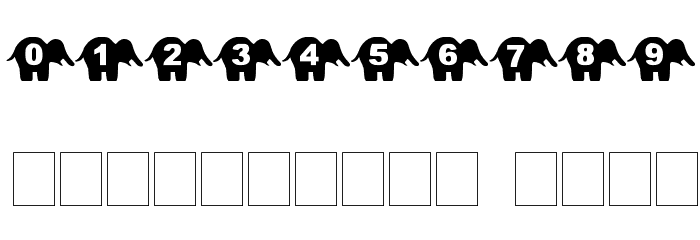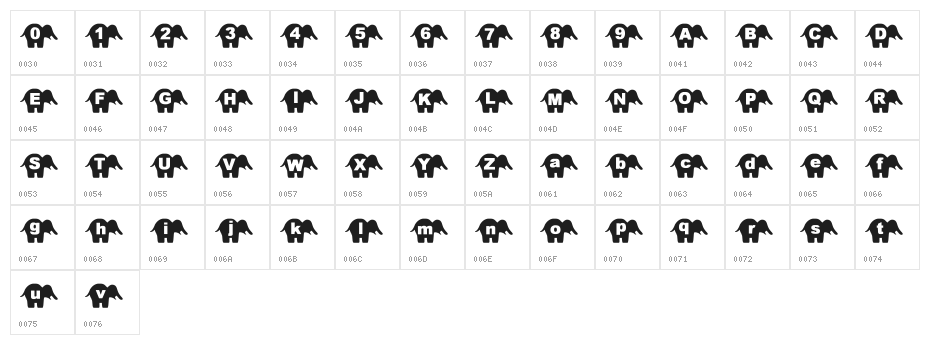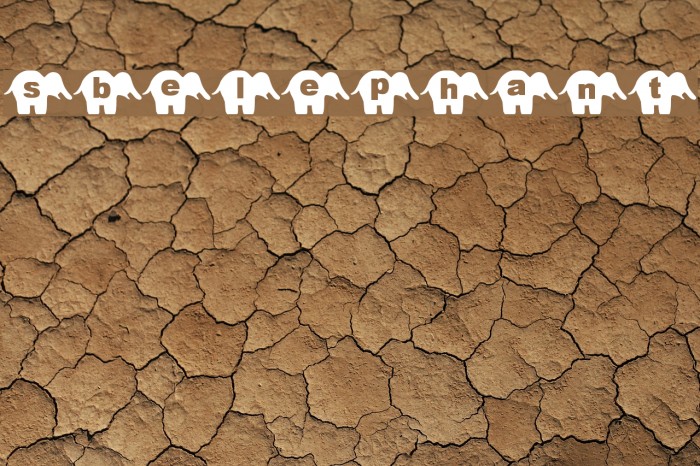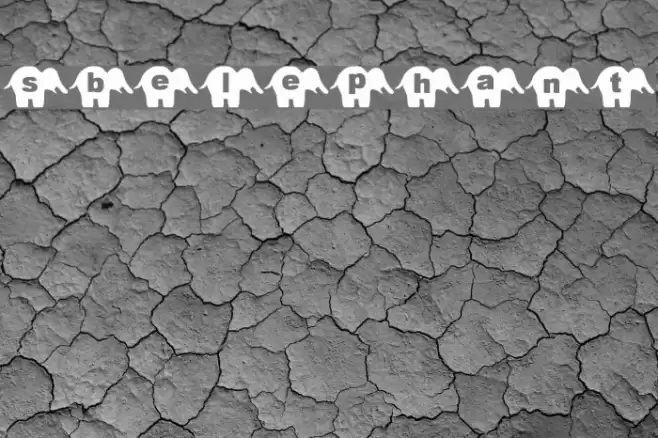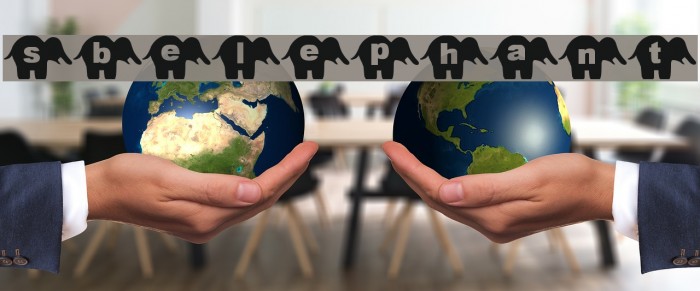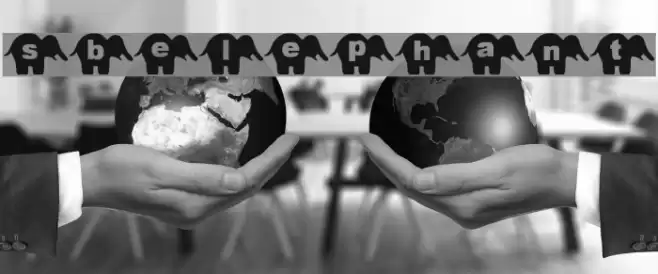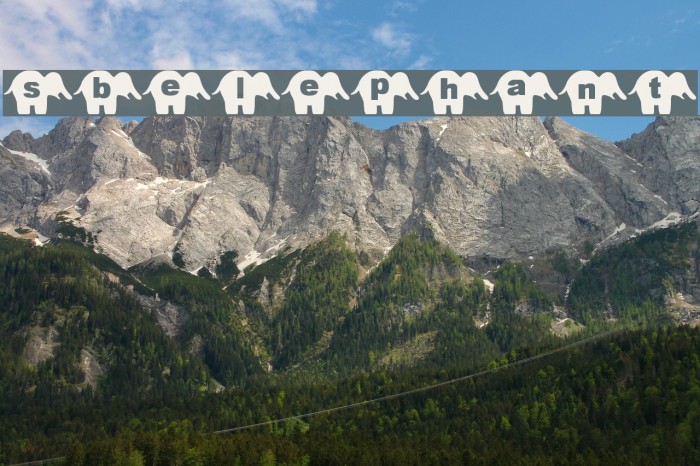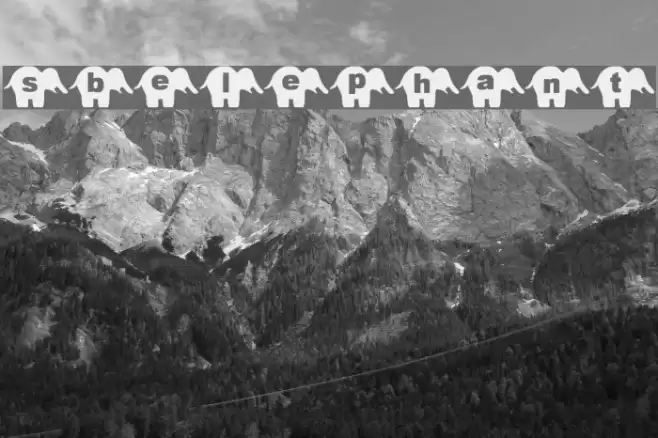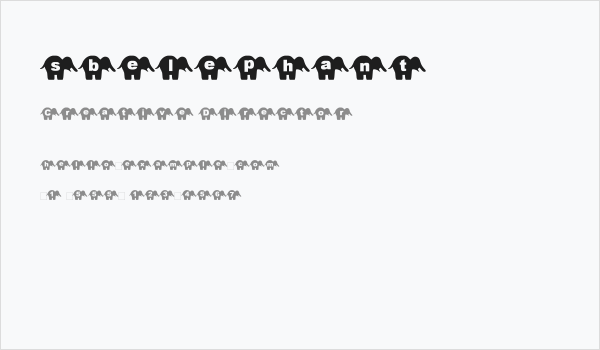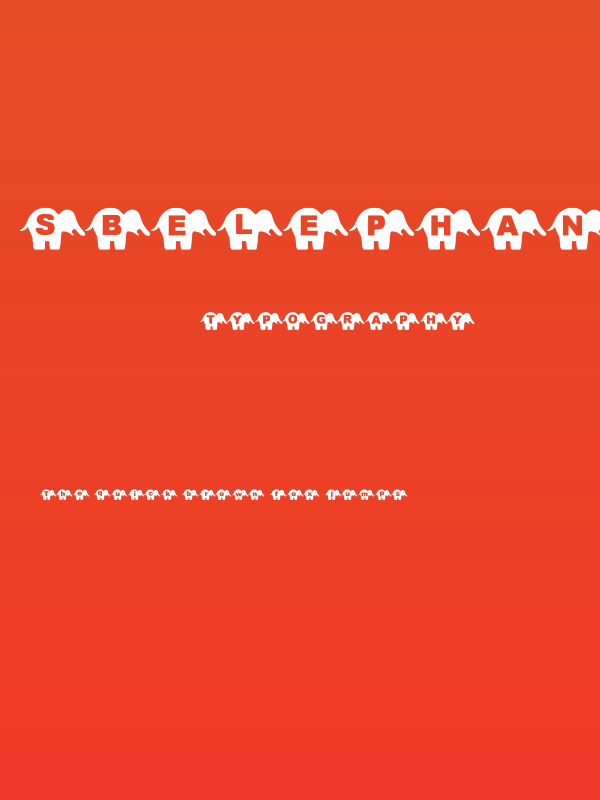
sbelephant Font
sbelephant Description
This playful and whimsical font features characters that are creatively integrated with elephant silhouettes. Each letter and number is designed with an elephant's body forming the base, while the trunk and ears add a unique flair to the top of the characters. The font maintains a consistent and bold appearance, making it highly decorative and eye-catching. The integration of the elephant design with the characters creates a fun and engaging visual experience, perfect for projects that require a touch of creativity and imagination. The font's distinct style makes it suitable for children's books, playful branding, or any design that aims to evoke joy and curiosity.
| Overall Style | Playful, Whimsical, Decorative |
| Proposed Projects | Ideal for children's books, playful branding, educational materials, and creative posters. |